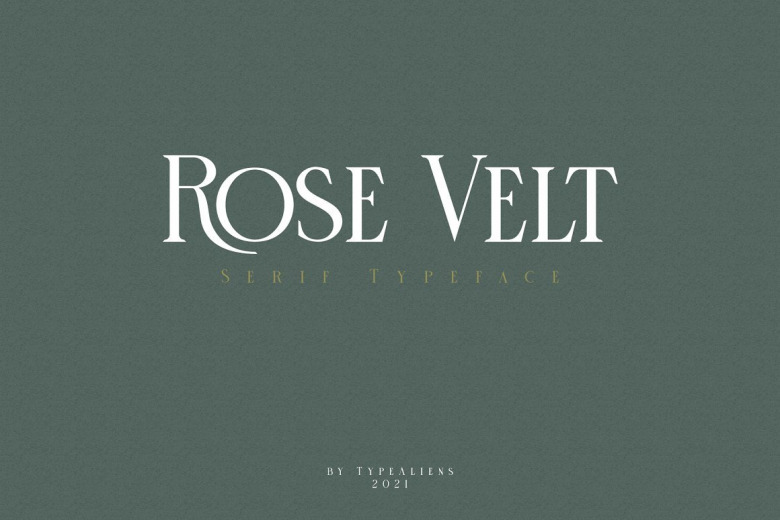
Rose Velt Font
Rose Velt Font is a vintage and stylish font based serif that have unique looks. This font contains uppercase and lowercase that have same form. Quite elegant font, very easy to apply to logos, clean and classic but still attractive for modern designs such as magazine covers, posters, flyers etc.